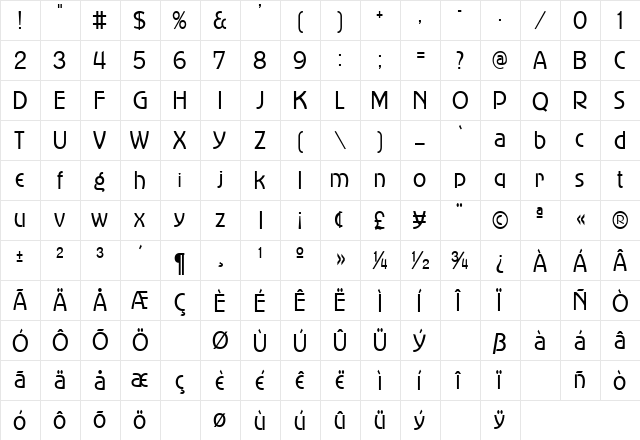
MadisonThin Normal Font Preview
MadisonThin Normal
MadisonThin Normal Font Details
Design Context for MadisonThin Typeface
MadisonThin takes a measured approach to typography — its balanced proportions and neutral character make it a reliable workhorse for both digital and print work. The delicate stroke weight brings airiness and refinement to layouts.